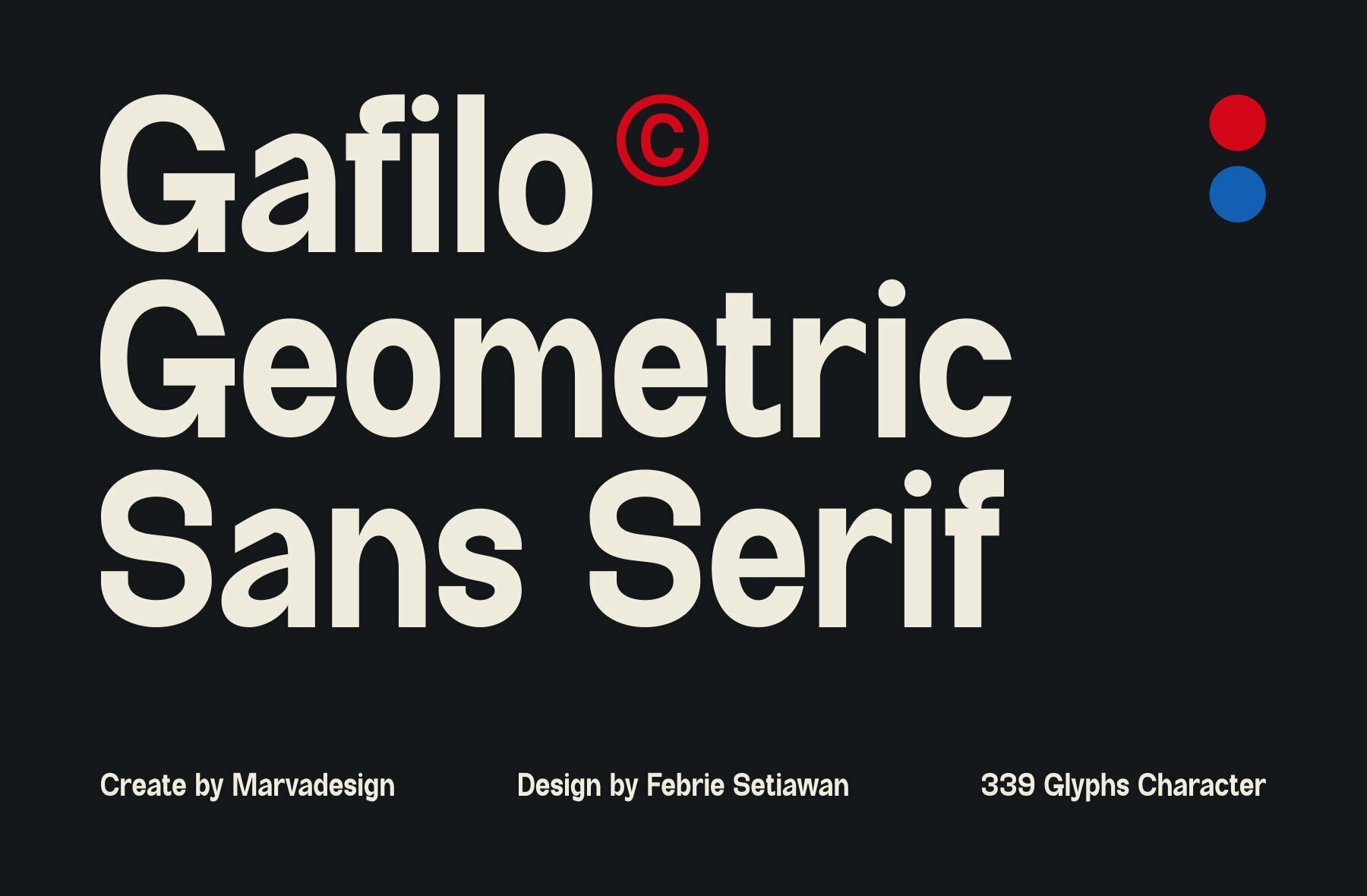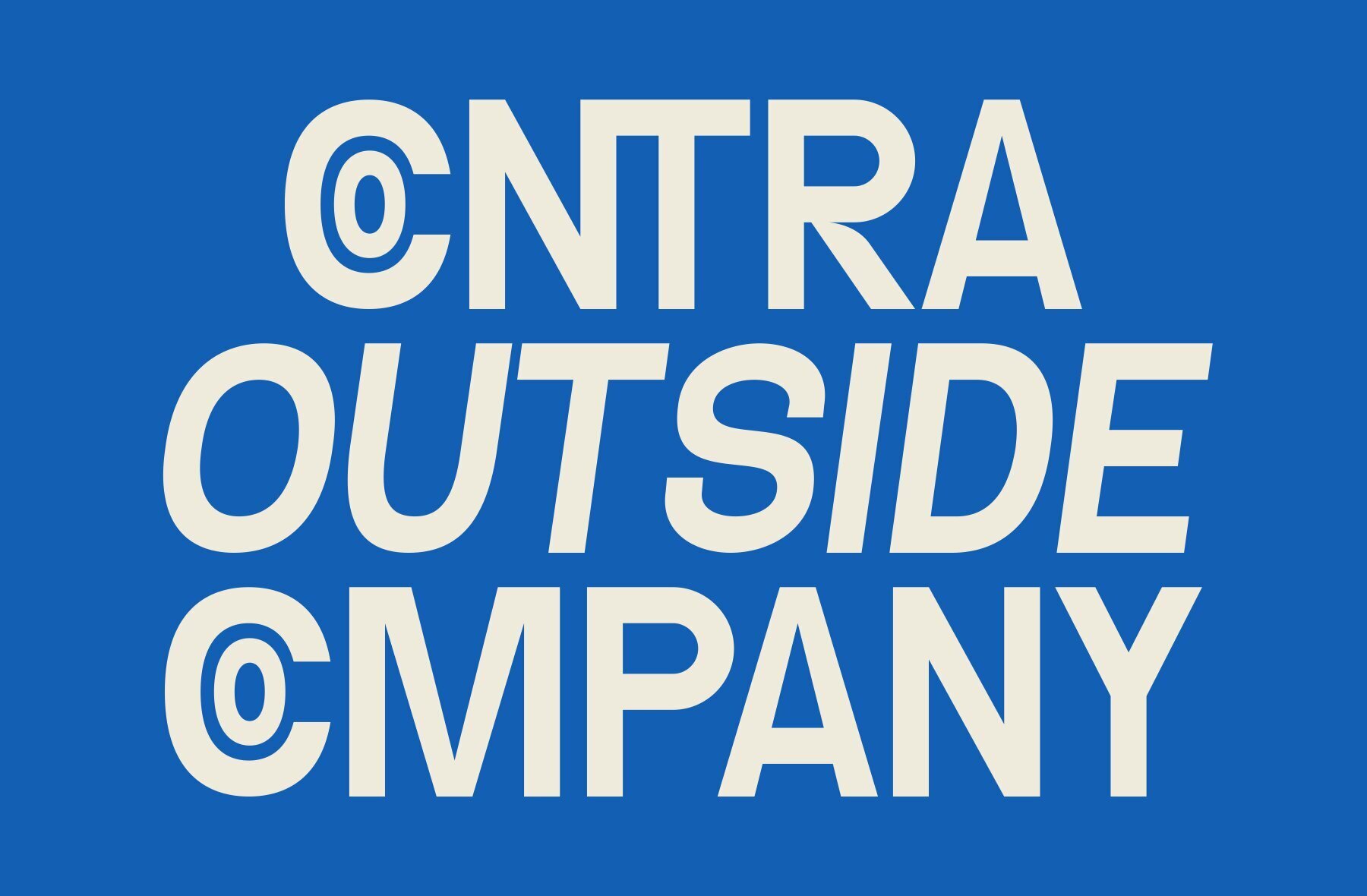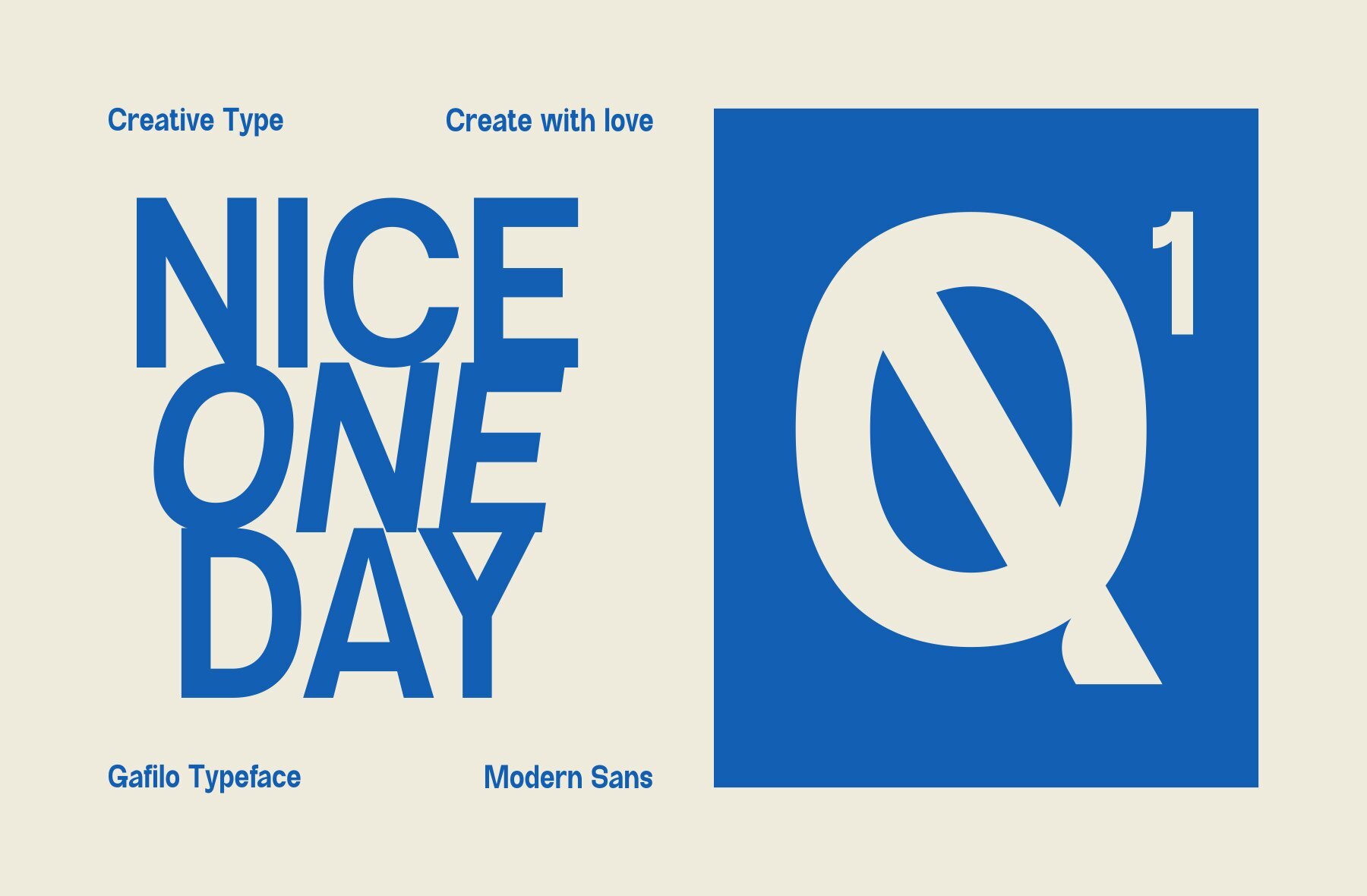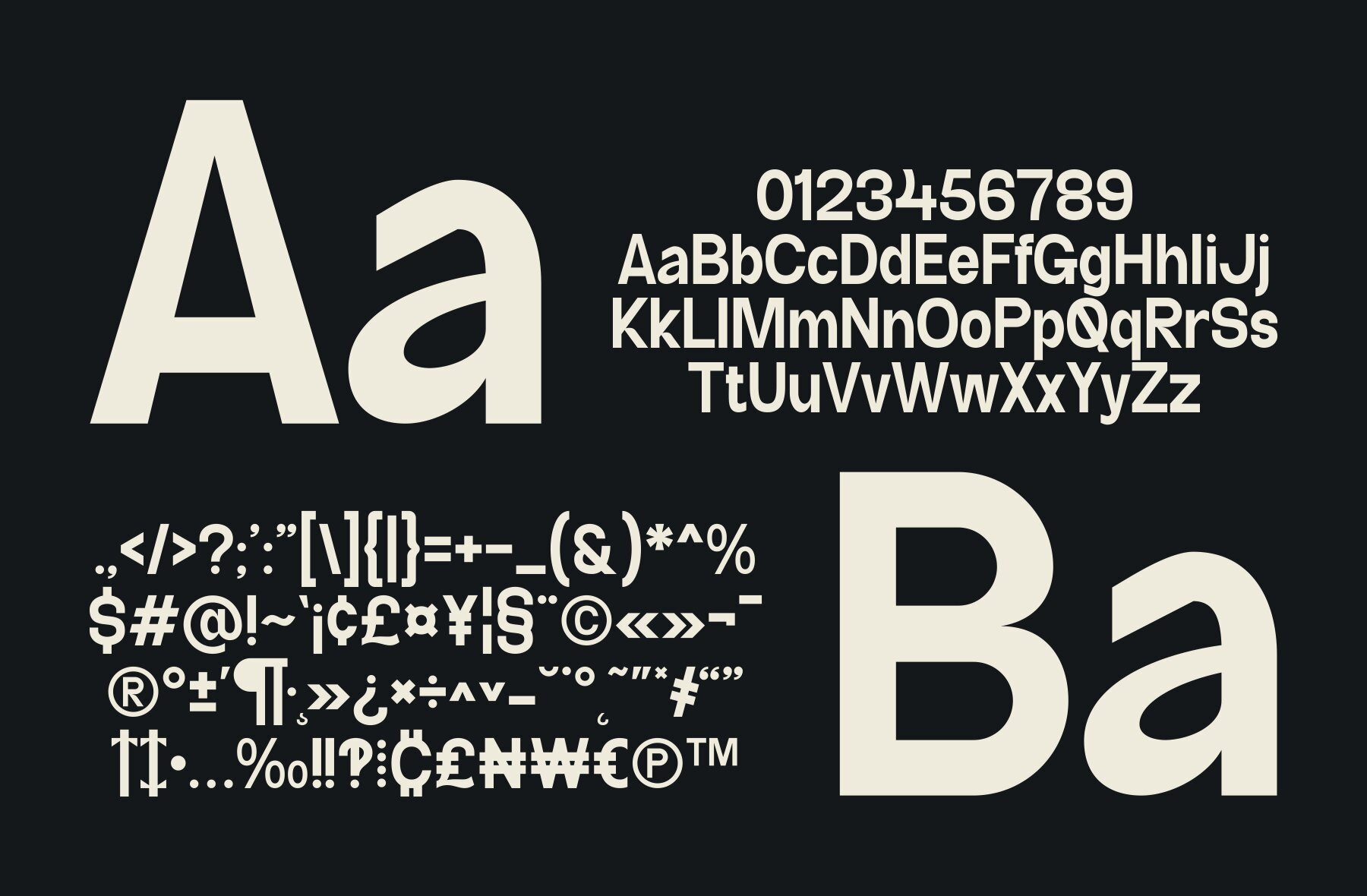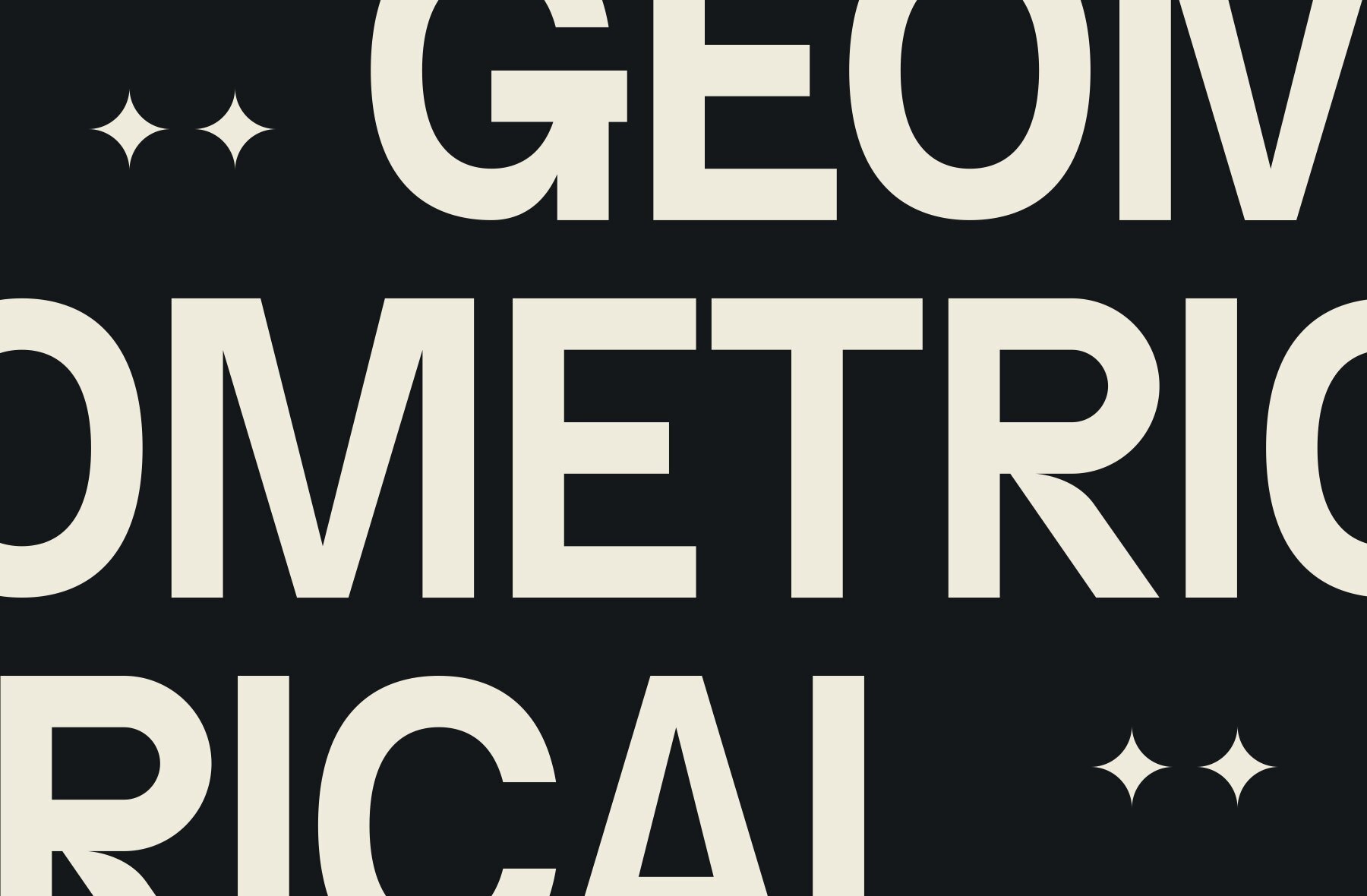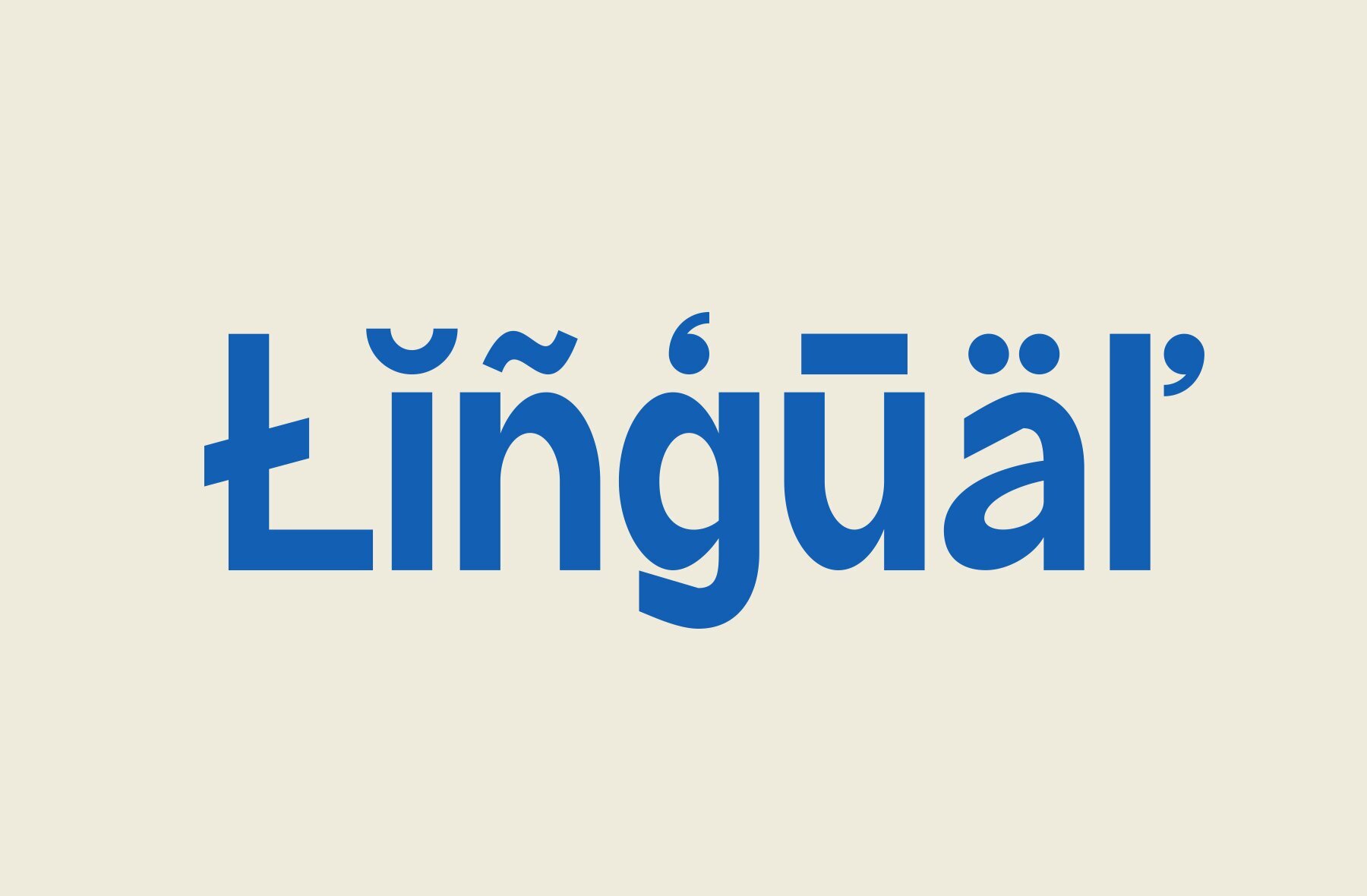
Gafilo Font
Introducing Gafilo, a modern sans serif typeface that offers a clean and contemporary look. Available in both regular and italic styles, Gafilo provides versatility for various design projects. This typeface features distinctive lowercase letters with subtle yet noticeable variations, enhancing its uniqueness and appeal.
Gafilo is perfect for designs that require a sleek, modern aesthetic without sacrificing readability and sophistication. Its balanced design makes it suitable for a wide range of applications, from branding and advertising to web design and editorial use. Choose Gafilo to add a touch of modern elegance to your projects.